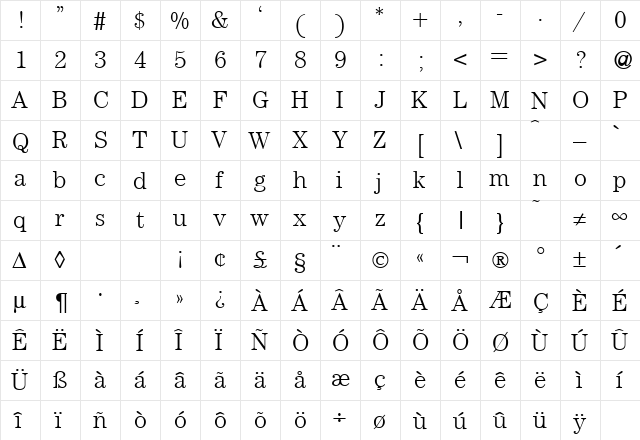
ModernCenturyLight Regular
ModernCenturyLight is a composed and adaptable typeface that performs quietly and consistently across a wide range of design contexts. Its slender proportions lend an understated elegance to any composition.